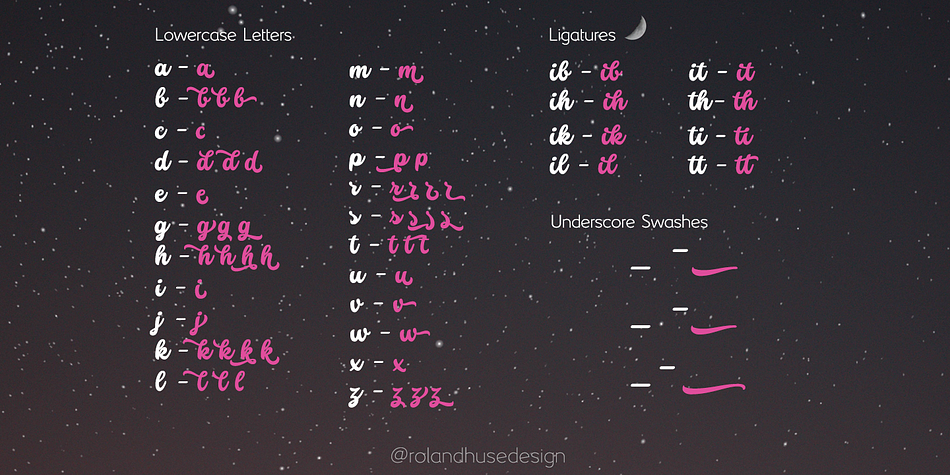
Stars & Love is a bold, cursive brush calligraphy font, influenced by retro script style with a friendly rounded look and flourished elegance. It features stylistic alternates, contextual alternates, standard ligatures and terminal forms (beginning and ending characters are a bit different) that ensures multiple options for you to choose from for your design work. This font comes in two instances, a Bottom Heavy and a Regular version.
Being friendly yet elegant in its visual presence, Stars & Love is perfect for Love theme designs, premium packaging, stationery design, invitations, posters, logos, custom products and more.
The Character set covers most Latin languages.
Font Features:
• Character set:
• Latin character set: Uppercase & Lowercase A - Z
• Stylistic Alternates (up to 3 Sets)
• Contextual Alternates (Initial and Final Forms)
• Standard Ligatures
• Underline Swashes (Stylistic alternates for underscore)
• Numerals & Punctuation
• Accented Characters
• Symbols (Currencies and basic symbols such as @ # % etc.)